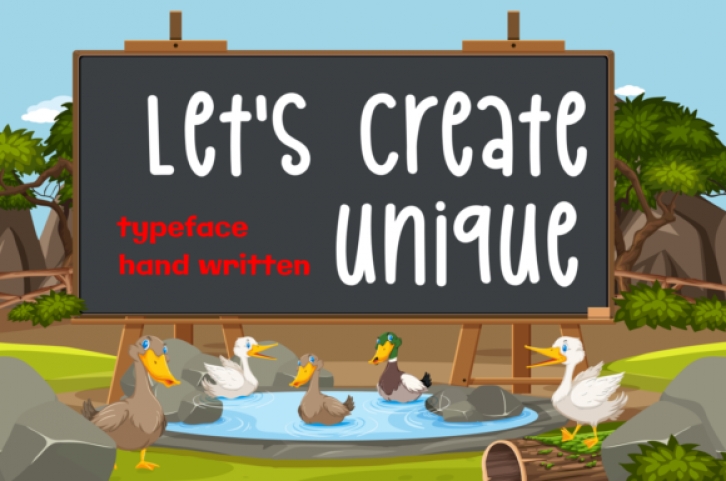
Let’s Create Unique feels equally trendy and adaptable. Add this neat font to each of your informal or casual ideas and notice how it makes them stand out.